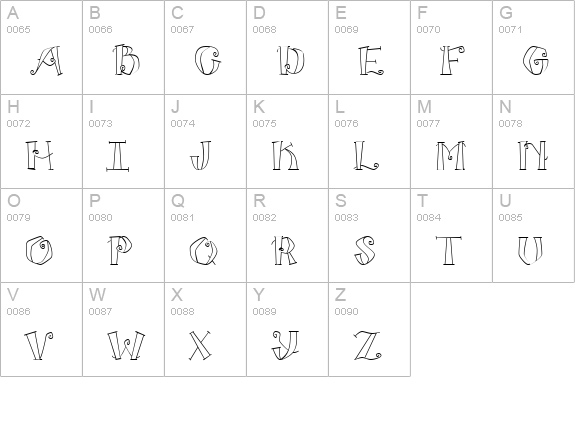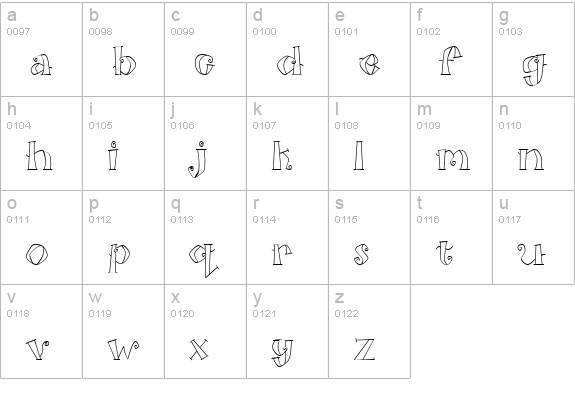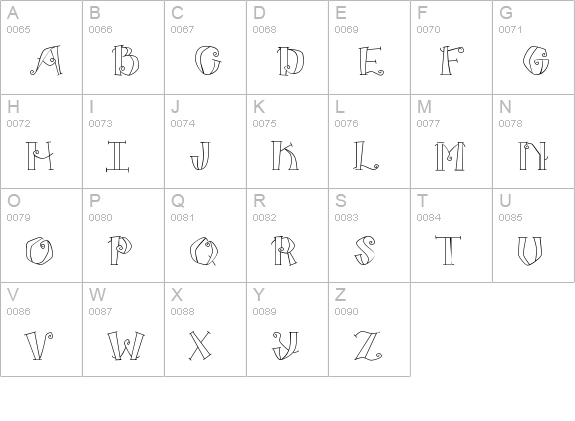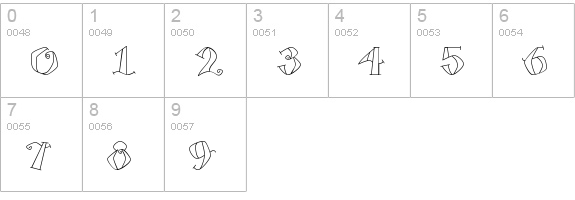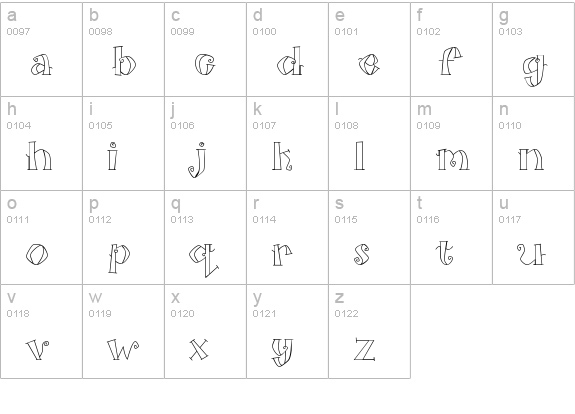
CK Flair Font Details
Introducing CK Flair font, a captivating and elegant typeface that exudes sophistication and charm. With its stylish and distinctive letterforms, CK Flair is perfect for adding a touch of luxury to your designs. This versatile font is ideal for a wide range of projects, from branding to invitations to social media graphics. What sets CK Flair apart is not only its timeless appeal but also its accessibility - it is available for free download at FontsMarket.com. Whether you're a designer looking to elevate your creations or an individual seeking a premium font for personal use, CK Flair offers a high-quality solution that won't break the bank. Embrace the beauty and grace of CK Flair font in your next project and make a lasting impression with its exquisite design. Download it for free today and let your creativity shine.